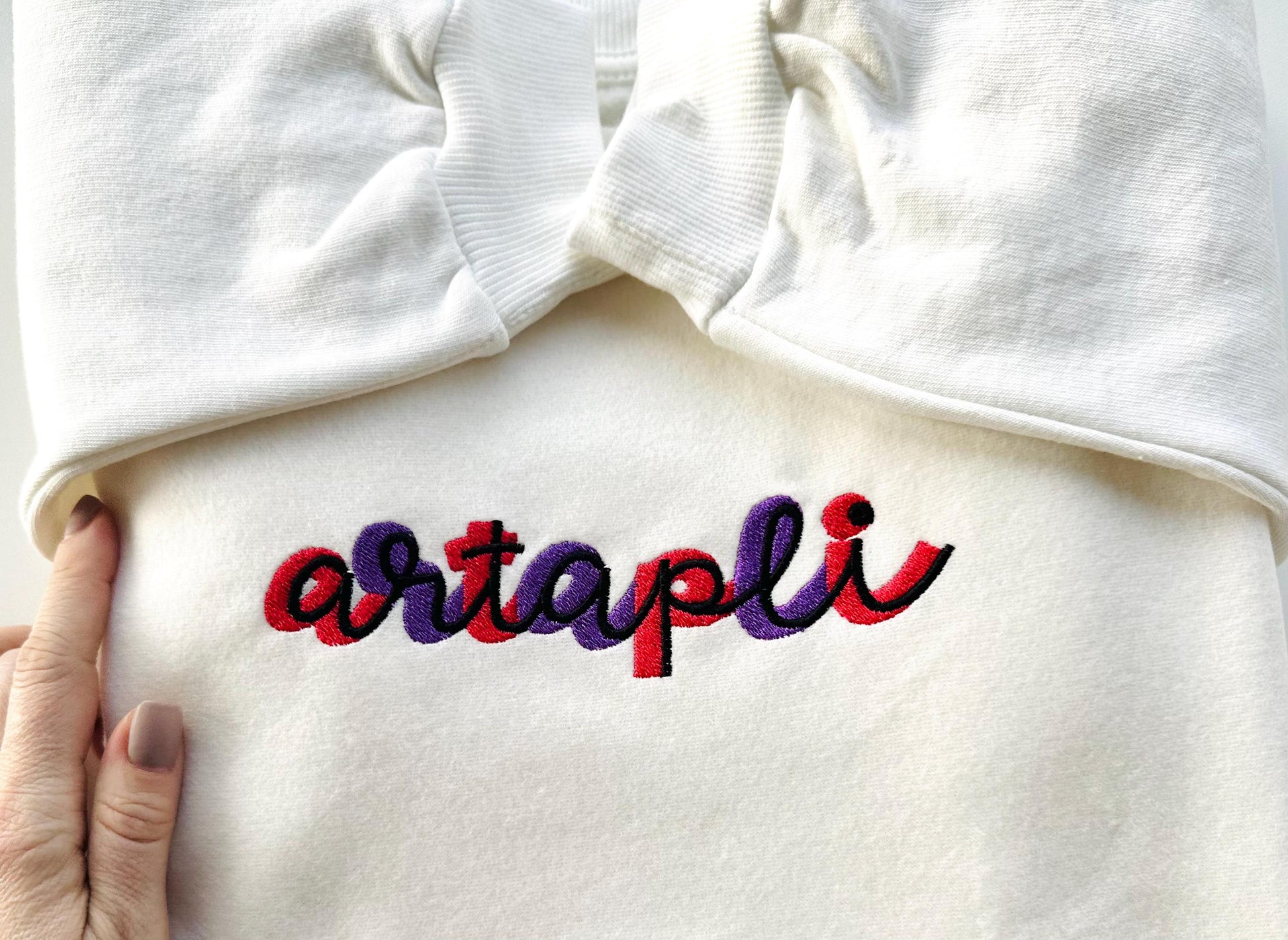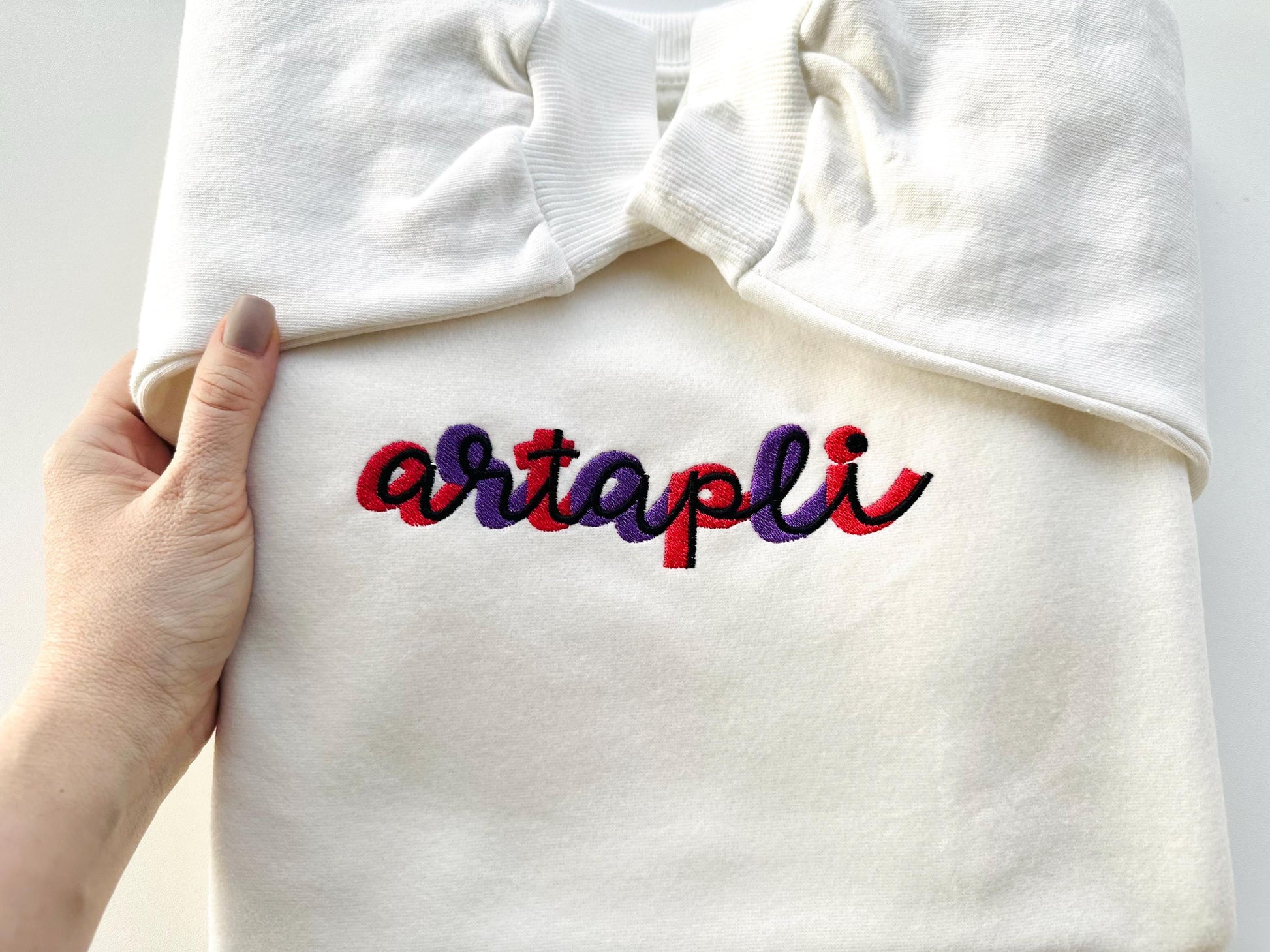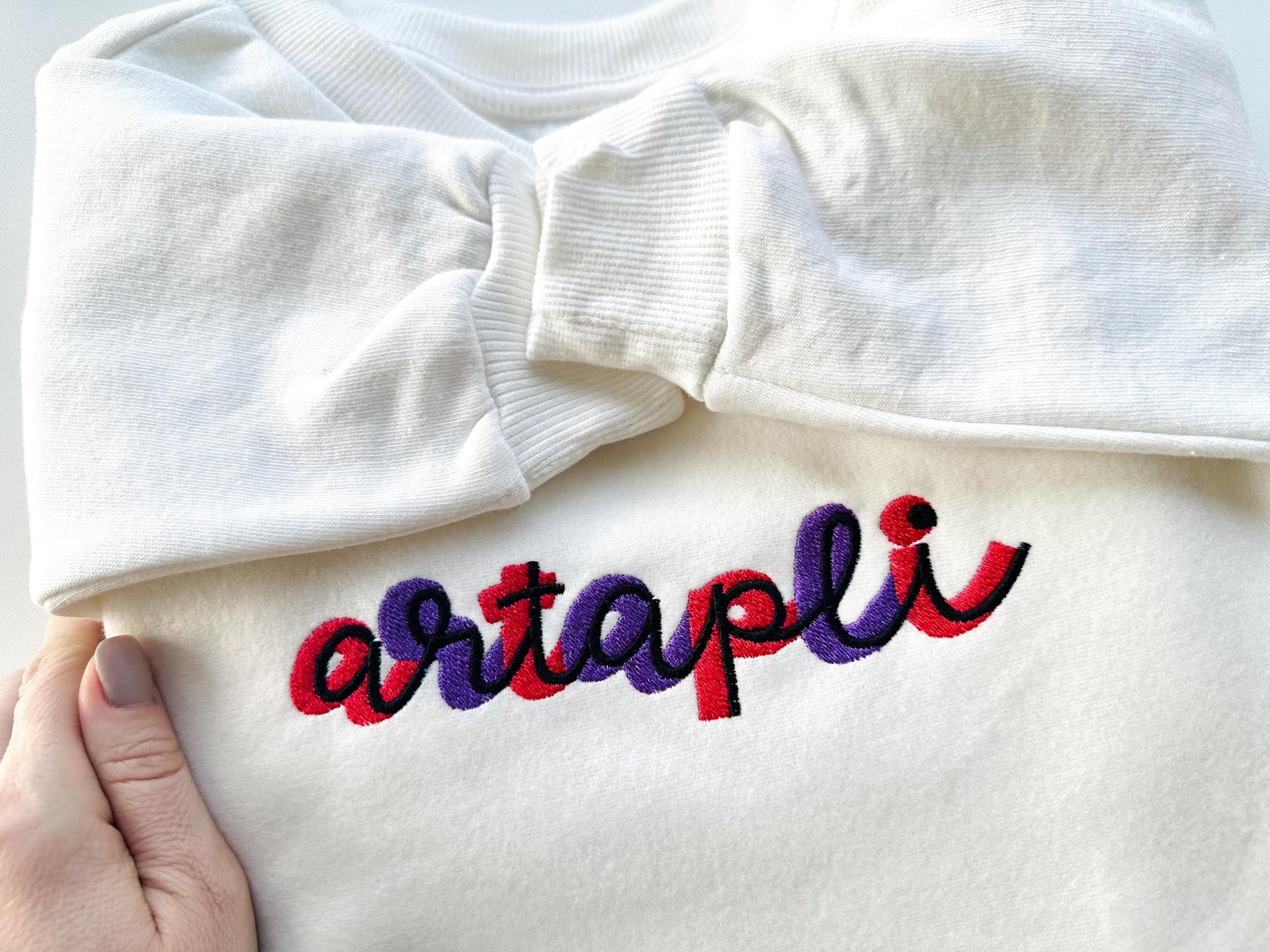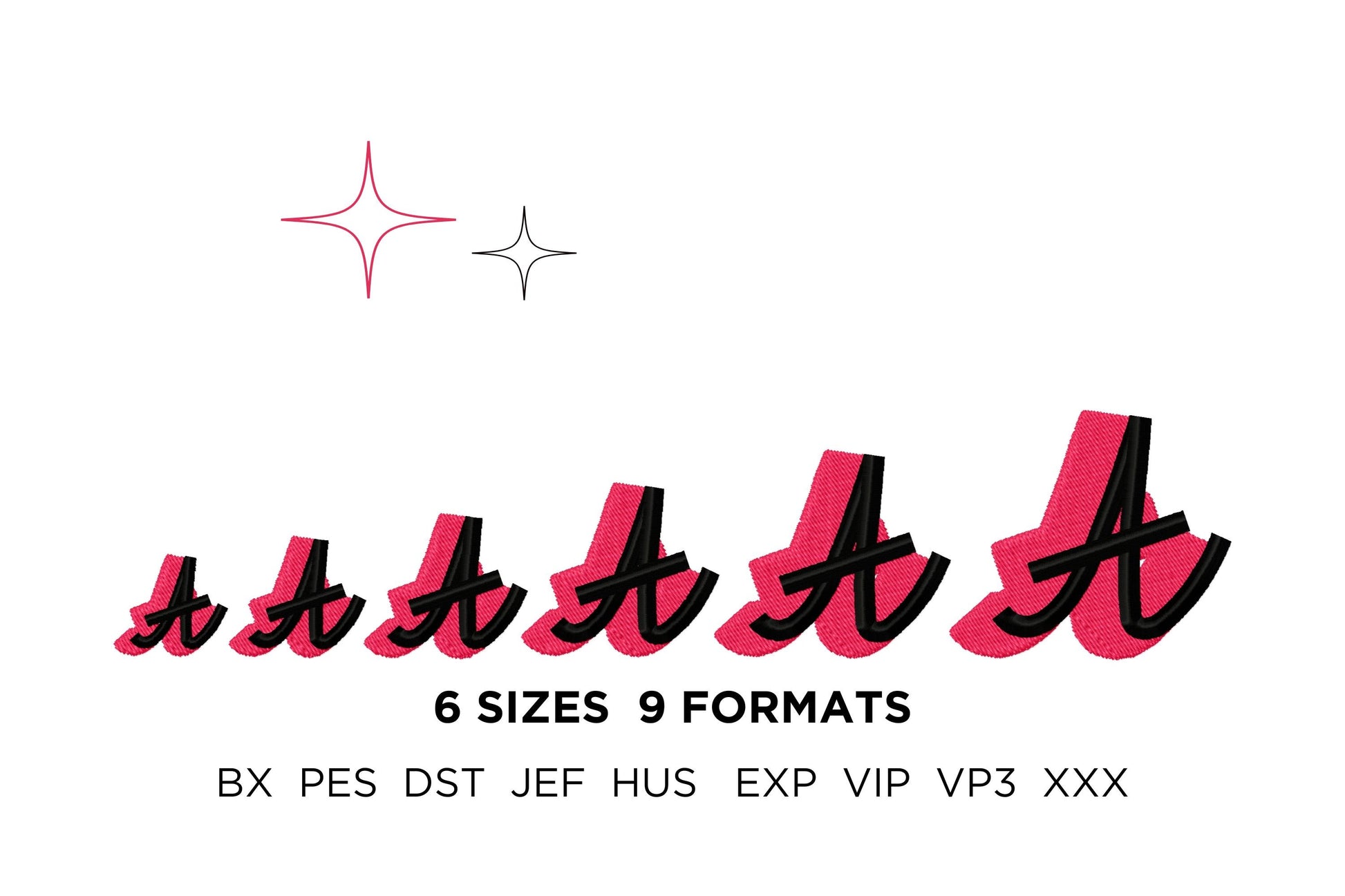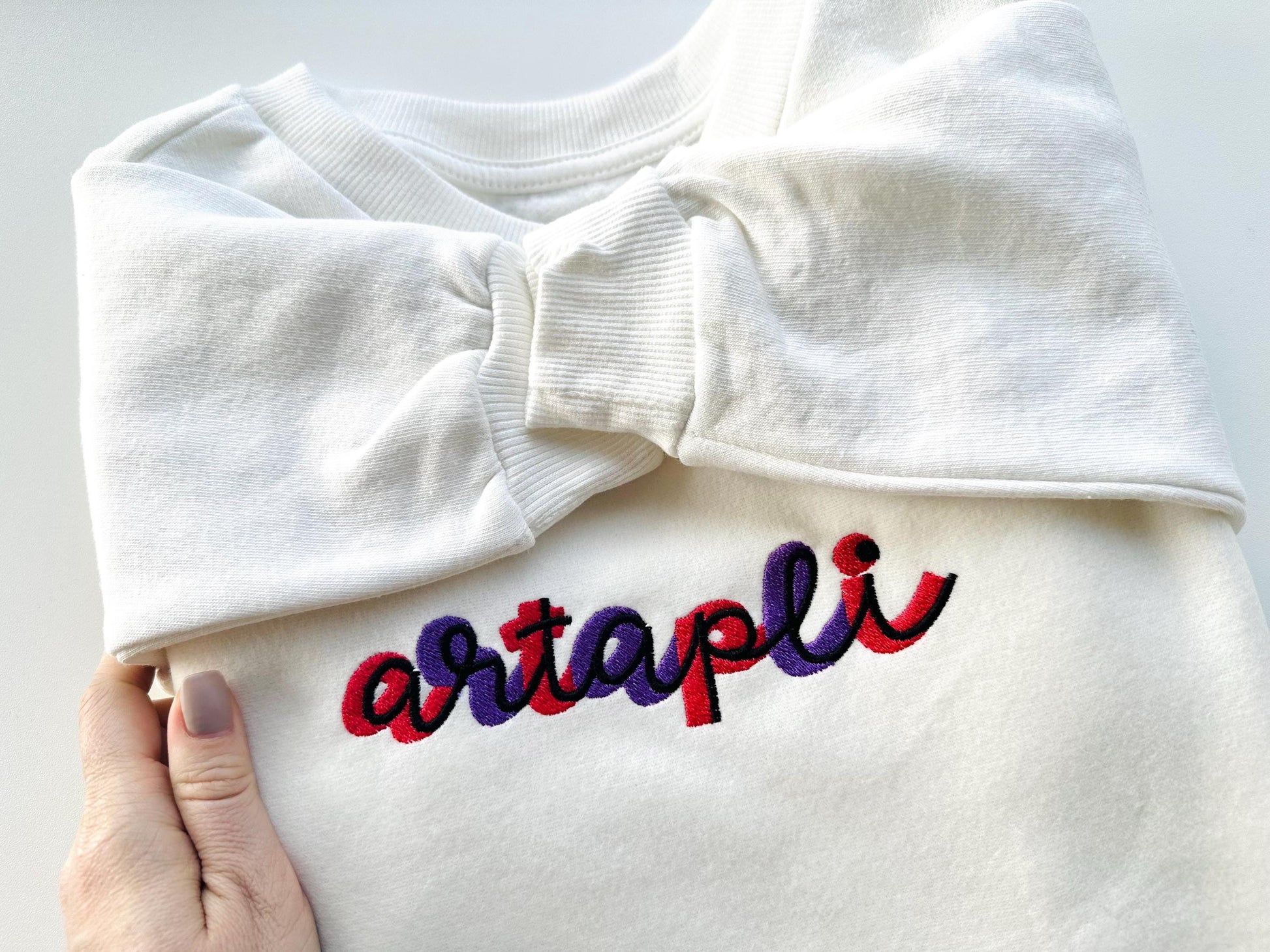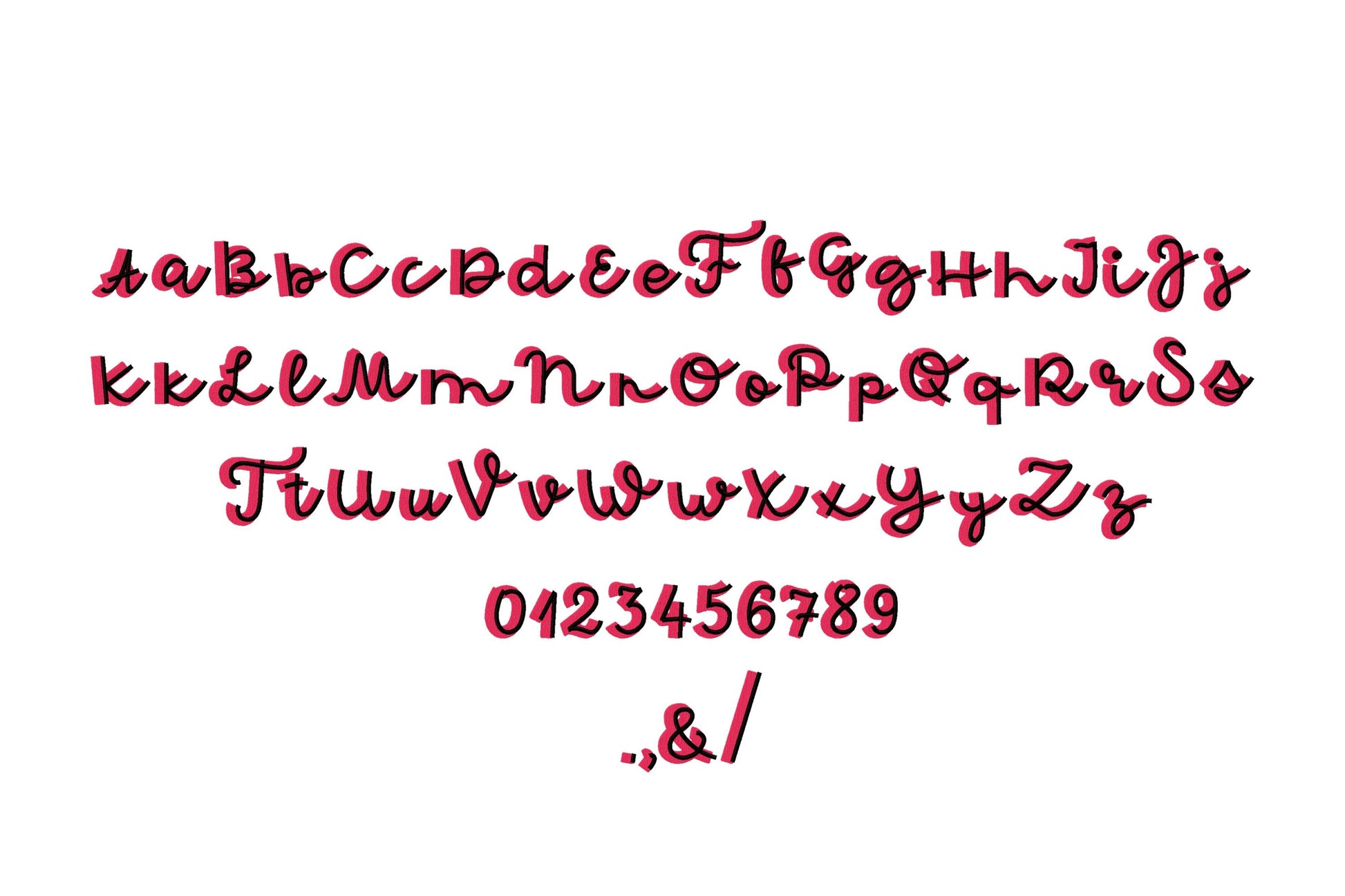
Wide Handwritten Script Shadow Font
Or click to open the linkA wide handwritten script with a two-color shadow, in fill stitch and mini sizes. Lovely for names and monograms on shirts, bibs and gifts.
Uppercase and lowercase letters, numbers 0 to 9 and punctuation, with two styles of lowercase s. Six sizes: 1, 1.2, 1.4, 1.7, 2 and 2.4 inches.
- 2-color wide shadow script font
- Uppercase, lowercase, numbers 0 to 9, punctuation
- 6 sizes, 1 to 2.4 in